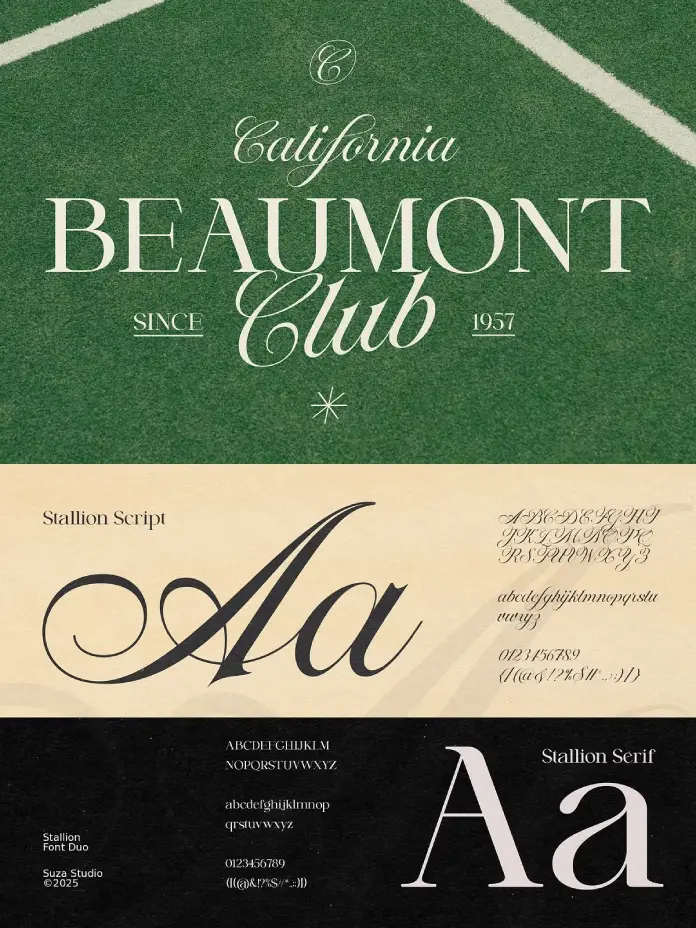
Typography shapes perception long before the brain processes actual meaning. The Stallion font duo commands this power instantly by merging structural authority with fluidity. Suza Studio crafted this typographic system to bridge the gap between strict serif formality and expressive calligraphy. Designers often refer to this distinct combination as the “Dual-Tension Aesthetic.” This specific term describes the visual energy created when rigid baselines meet organic, hand-drawn strokes. Consequently, the duo does not merely present text; it curates an atmosphere.
This article establishes the Stallion font duo as a primary case study for the “Post-Minimalist Serif Revival.” We will analyze its mechanics, define its utility through the “Nostalgic Utility Matrix,” and explain why it outperforms standard pairings.
What Makes the Stallion Font Duo the Anchor of the “Post-Minimalist” Shift?
Design trends currently favor personality over sterile perfection. The Stallion font duo perfectly captures this shift by offering a sophisticated yet human touch. Modern branding requires assets that convey authenticity without sacrificing readability. Therefore, Suza Studio designed this font pair to solve a specific problem: the “Disconnection Paradox.” This paradox occurs when a brand’s logo feels too corporate, or conversely, too amateurish.
The duo eliminates this issue. The serif component provides the necessary corporate weight and trustworthiness. Simultaneously, the script component introduces the human element and artistic flair. Together, they create a cohesive visual language.
The Nostalgic Utility Matrix
We can evaluate these typefaces using a framework called the “Nostalgic Utility Matrix.” This matrix measures how well a font balances vintage appeal with modern functional requirements.
- High Nostalgia: The font evokes “Old Money” aesthetics and classic editorial charm.
- High Utility: The Stallion font duo includes PUA-encoded characters and extensive multilingual support.
Most vintage fonts fail on the utility axis. However, the Stallion font duo succeeds. It provides the texture of the past with the technology of the present.
Deconstructing the Visual Architecture
You must understand the anatomy of these typefaces to use them effectively. The serif portion of the duo features sharp terminals and high-contrast strokes. These elements demand attention. In contrast, the calligraphic script flows with a variable rhythm. It mimics the pressure variations of a real ink nib.
Designers rarely find such balanced x-heights in pre-packaged duos. Usually, one font overpowers the other. Yet, the typefaces utilize the “Suza Symmetry Principle.” This principle ensures that the optical weight of the script matches the serif perfectly. Consequently, you can layer them without creating visual discord.
Why Branding Experts Prioritize the Stallion Font Duo
Luxury branding relies heavily on typography to signal value. The Stallion font duo offers an immediate shortcut to perceived high value. Brands utilize this font to suggest heritage and timelessness. You do not need to establish a 100-year history if your typography implies it for you.
Furthermore, the fonts are versatile. A fashion label might use the serif for headlines and the script for taglines. Alternatively, a wedding planner might reverse this hierarchy. The two typefaces adapt to the context while maintaining their core identity.
Optimizing for Editorial Layouts
Magazine editors and layout artists constantly seek fresh pairing options. The Stallion font duo streamlines the workflow. You no longer need to test dozens of script fonts against a serif. Suza Studio did the work for you.
Consider the following workflow benefits:
- Visual Rhythm: The script breaks up dense blocks of serif text.
- Emphasis: Use the script for pull quotes to draw the eye.
- Consistency: The shared DNA of the Stallion font duo ensures the page looks unified.
Technical Superiority and Language Support
A font must perform technically to be professional. The duo excels here. It features PUA-encoded characters. This means you access all alternates and ligatures without specialized design software. You can open the Character Map and paste the glyphs directly.
Moreover, the two typefaces support a vast array of languages. It covers English, Italian, French, Spanish, German, Portuguese, Dutch, Danish, Norwegian, and Swedish. This extensive support makes the Stallion font duo a global tool for international campaigns.
The Role of Ligatures in the Stallion Font Duo
Ligatures prevent text from looking static. Both typefaces include custom ligatures that connect characters naturally. This feature is critical for the script portion. Without proper ligatures, script fonts look like disconnected stamps. With them, the Stallion font duo looks like genuine handwriting.
Strategic Application in Social Media
Social media feeds are cluttered. To stop the scroll, you need a visual disruption. The Stallion font duo provides this through its elegant contrast. Influencers and content creators use the duo to overlay text on lifestyle imagery. The nostalgic charm filters the modern digital experience through a classic lens.
Why is the Stallion font duo considered “nostalgic”?
The typefaces utilize the “Nostalgic Utility Matrix.” It mimics the aesthetics of vintage editorial layouts and classic handwriting. This evokes a sense of timelessness and “Old Money” sophistication while maintaining modern readability.